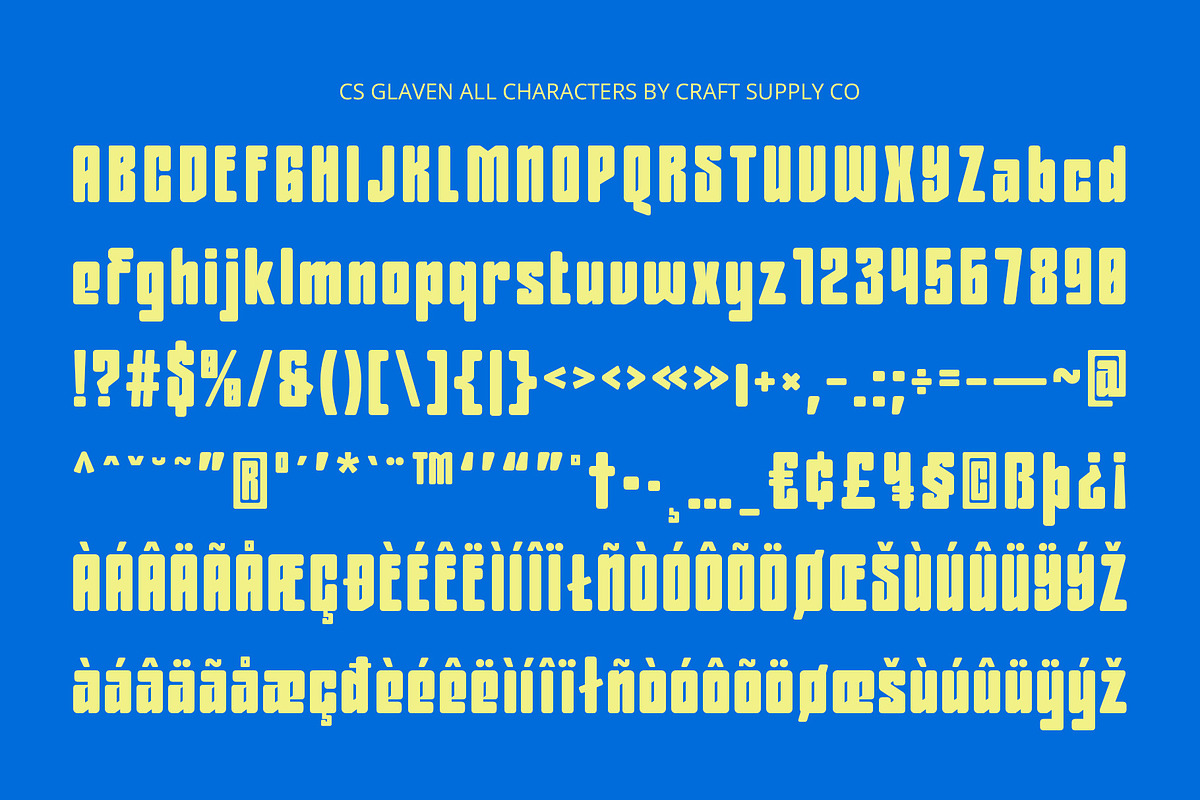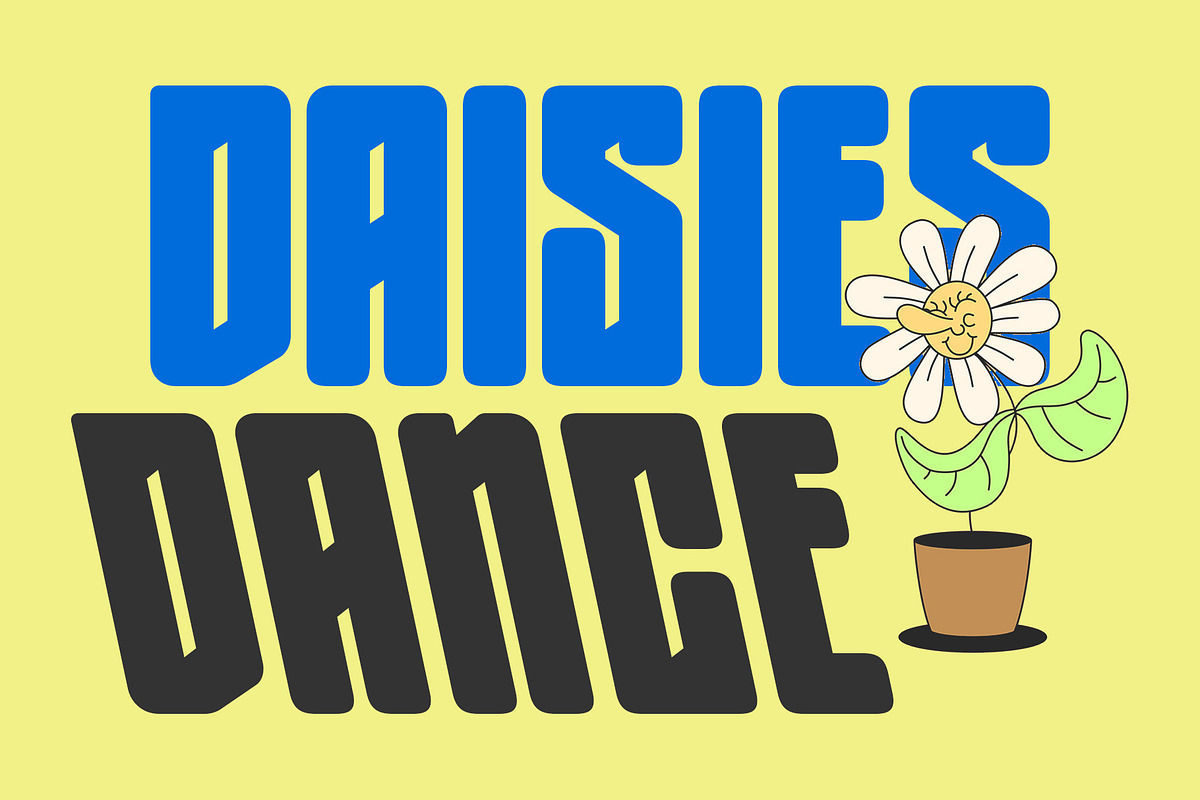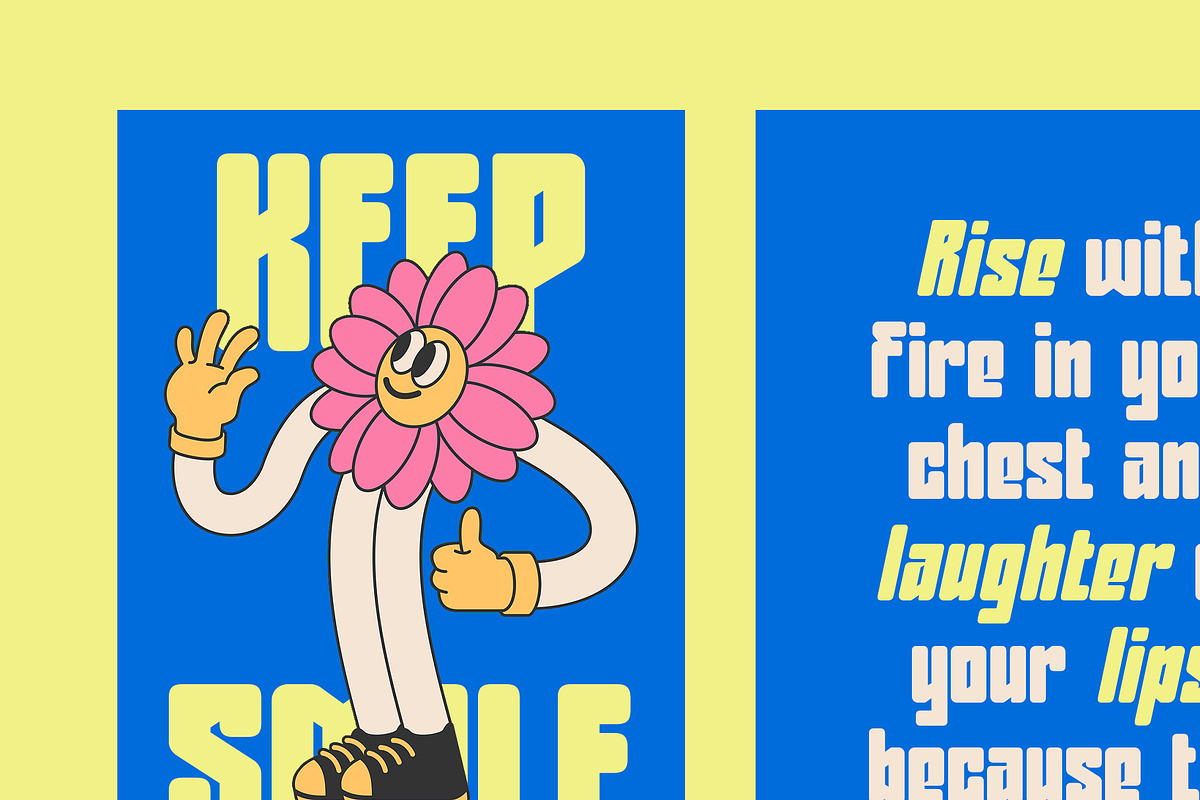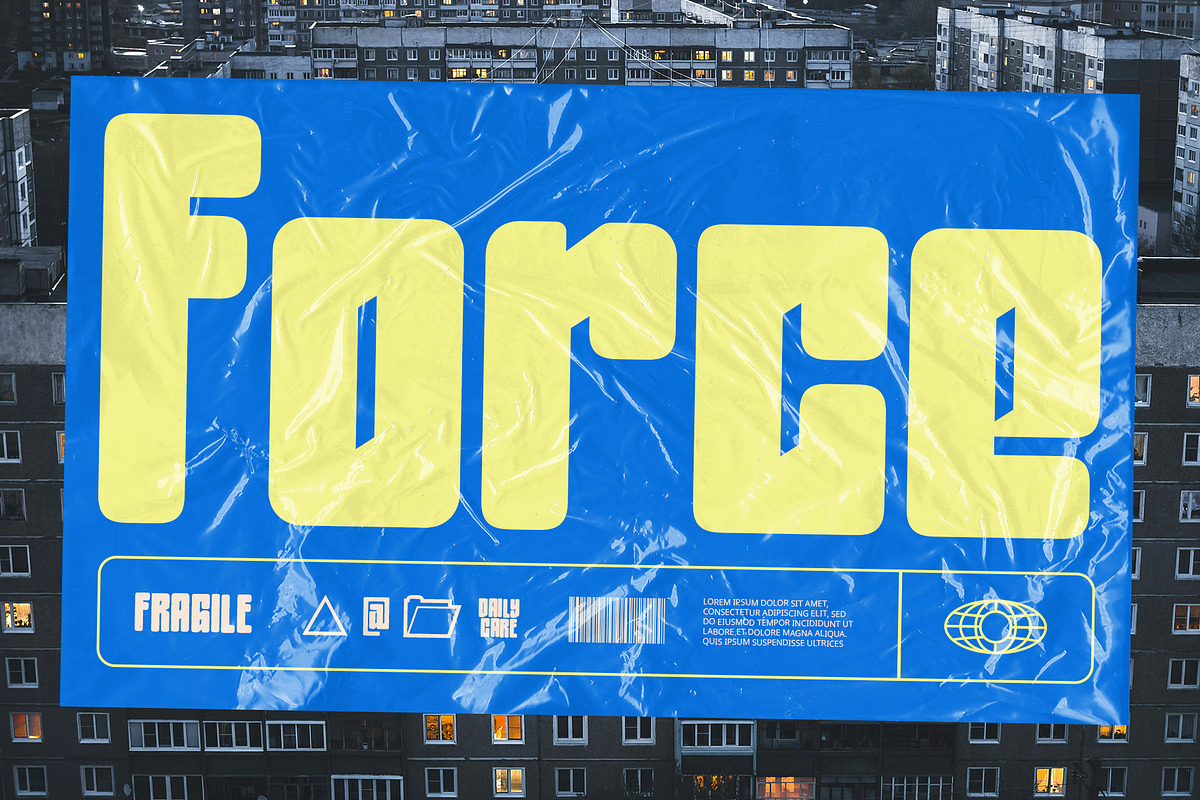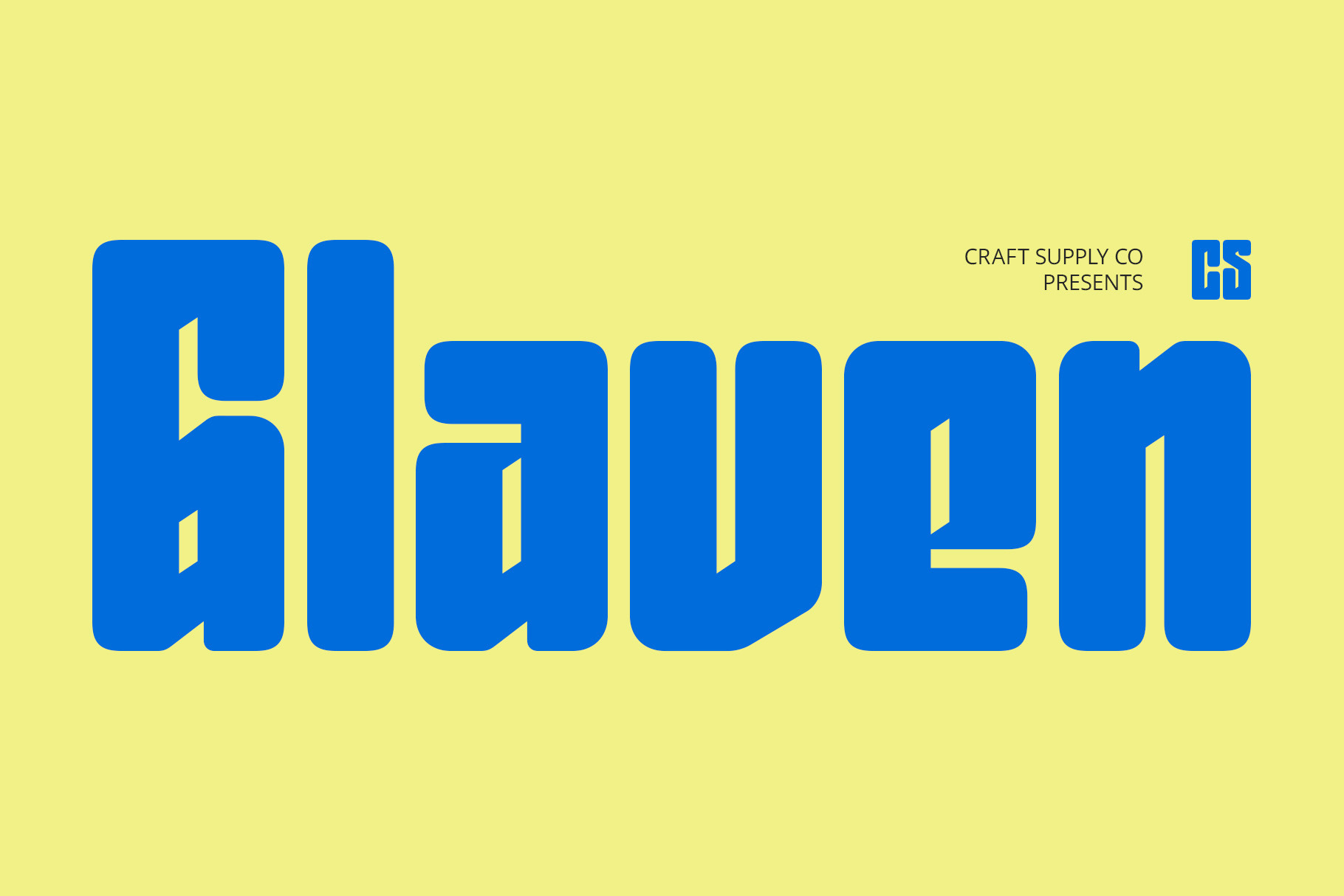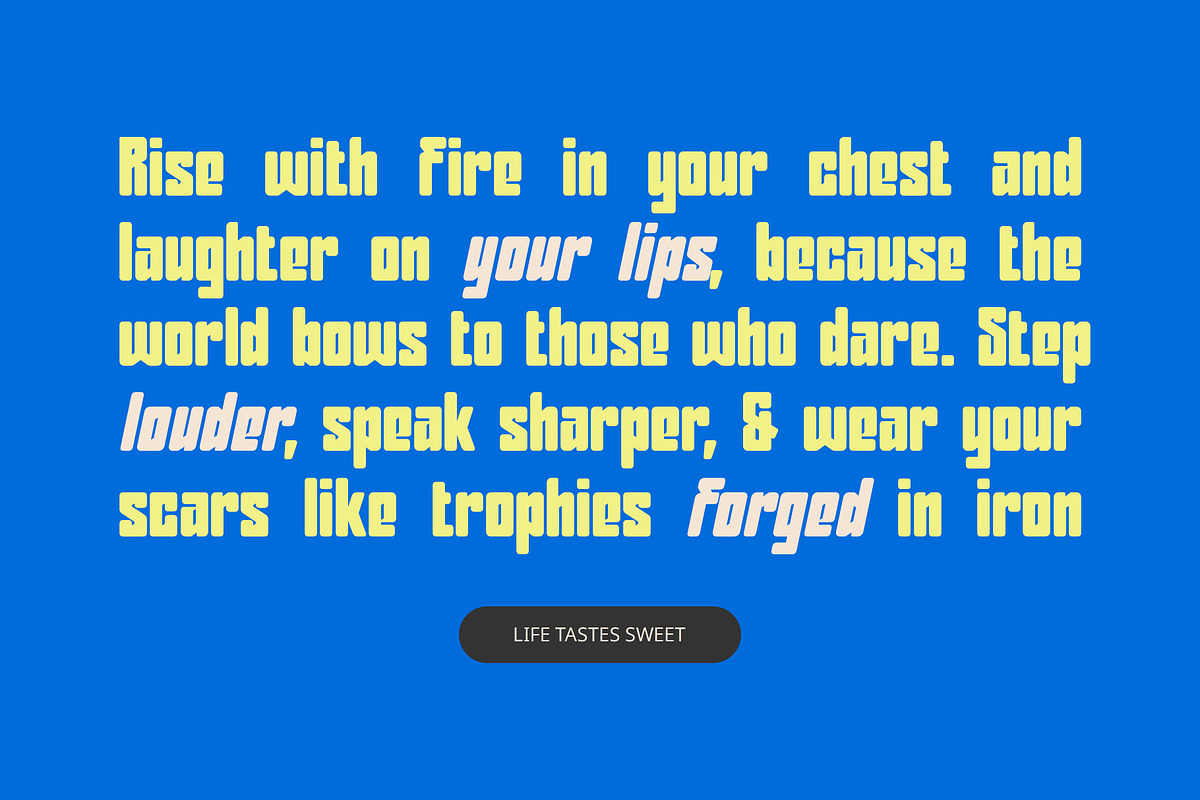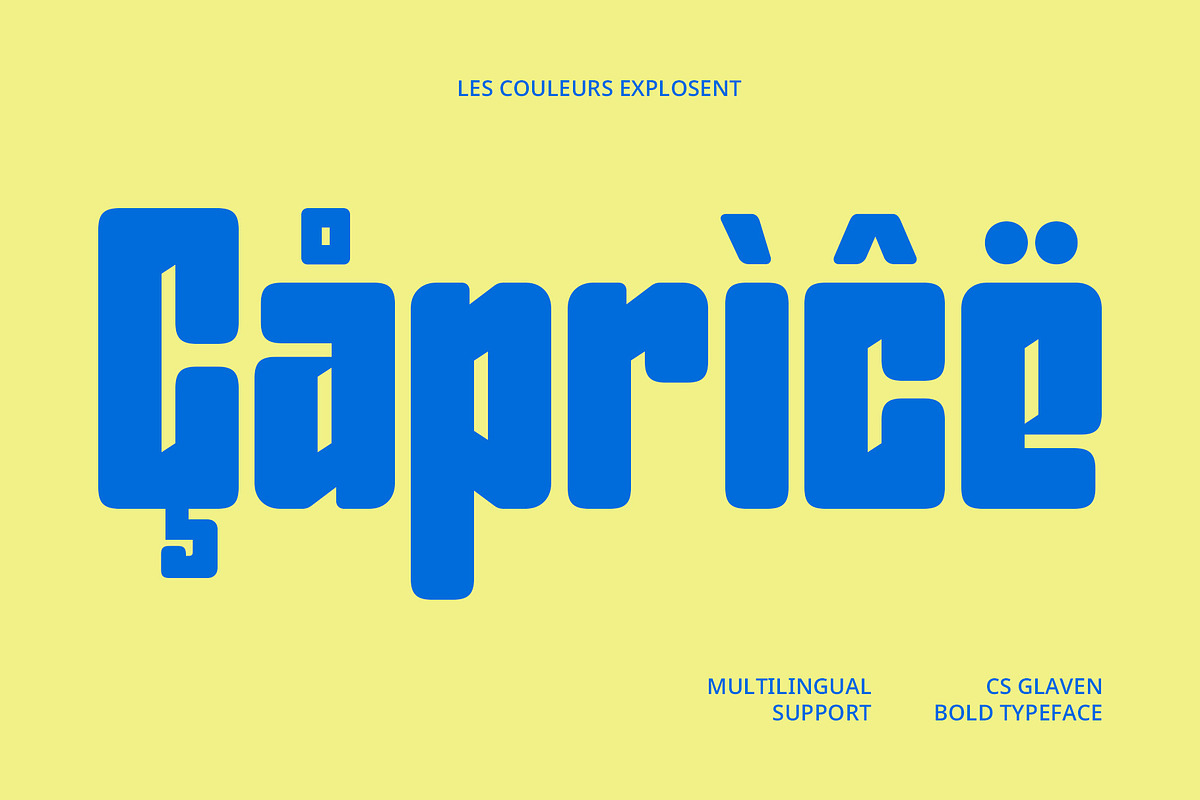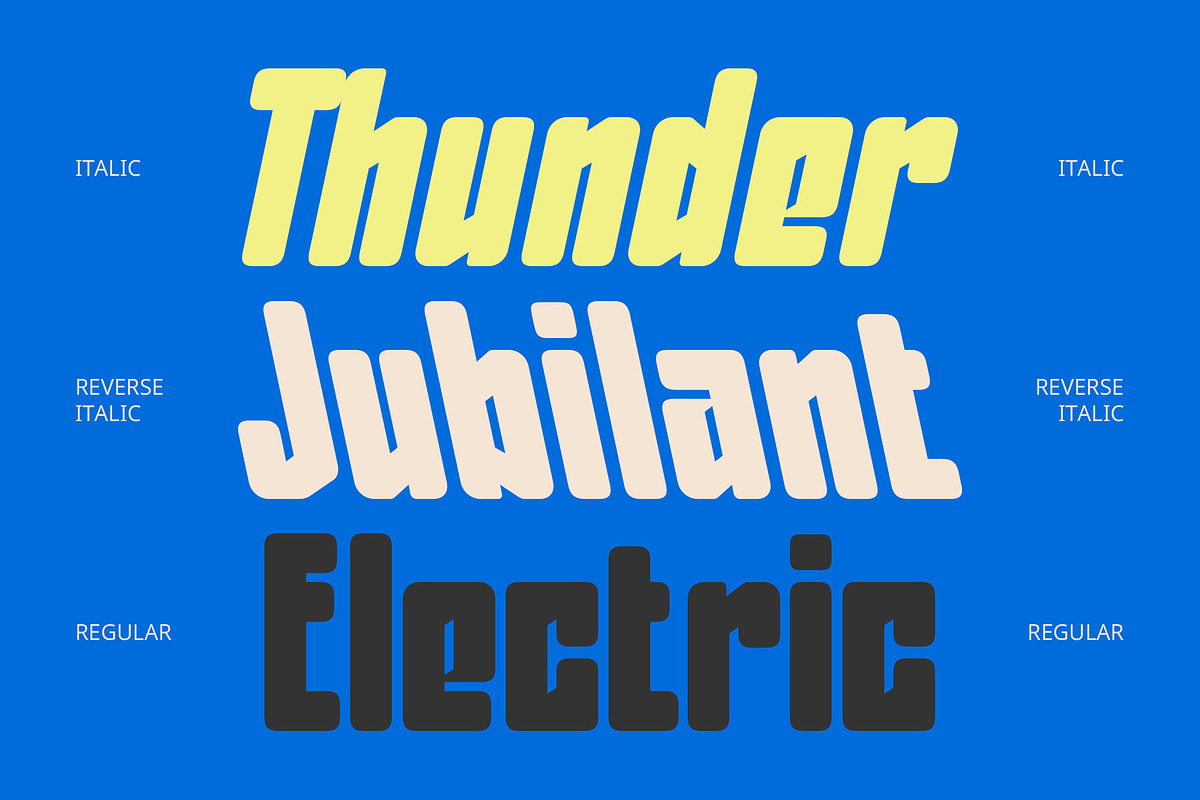
CS Glaven – Bold Font
CS Glaven – Bold Font: Strength with a Friendly Touch
Bold Structure for Maximum Impact CS Glaven is a bold display font designed to command attention. Its thick, confident letterforms give your text a strong and assertive presence, ideal for headlines, branding, and bold visual statements. Whether on posters or packaging, this font ensures your message won’t be missed.
Rounded Edges for a Modern and Approachable Feel What distinguishes CS Glaven is the balance between strength and softness. The slightly rounded edges soften the bold structure, creating a friendly and approachable look. This detail makes it perfect for modern designs that need to be professional yet welcoming.
Versatile for Contemporary Design Needs CS Glaven’s clean and adaptable design fits a variety of applications, from corporate branding to social media graphics. Its versatility allows it to shine in both digital and print environments, maintaining clarity and personality in every use.
Clear, Stylish, and Effective Communication CS Glaven isn’t just about boldness—it’s about character. Its rounded forms and confident stance give it a unique presence that feels fresh, engaging, and relevant to modern design sensibilities. For designers seeking a bold font that offers clarity, style, and a touch of friendliness, CS Glaven is a smart and reliable choice.